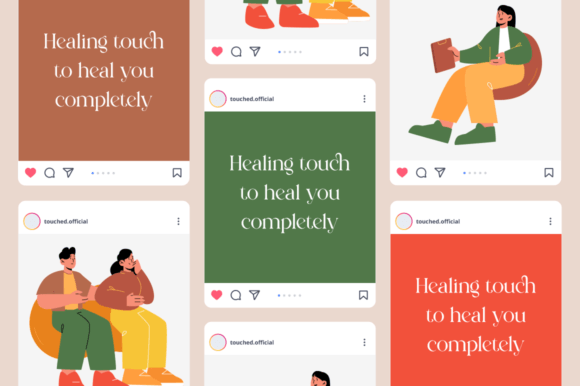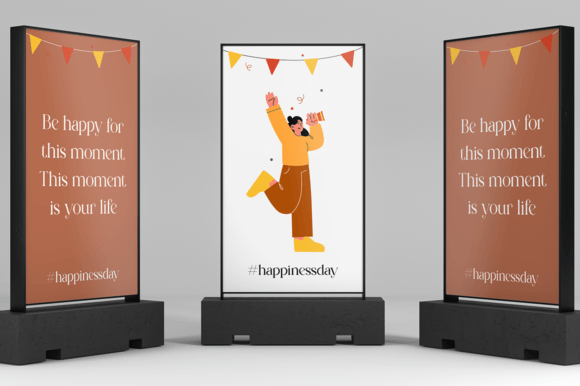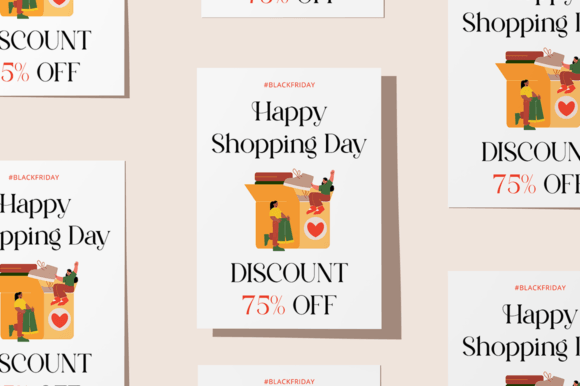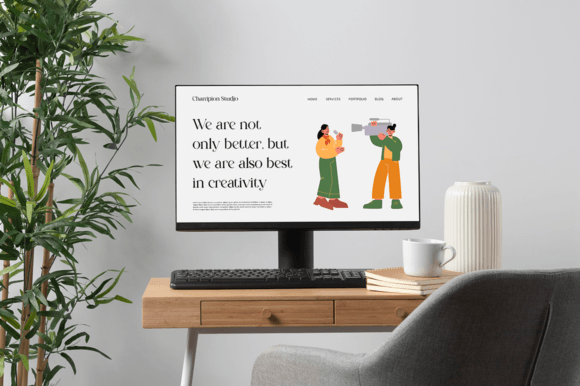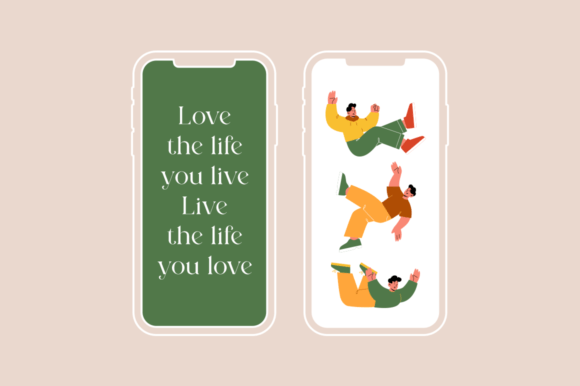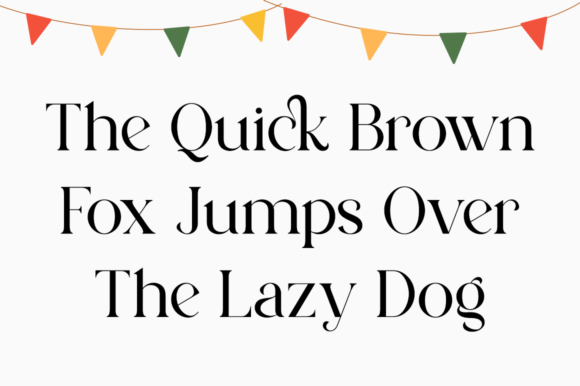
The Elusive Perfect Font: My Love Affair with Hachest
I still remember the frustration of working on a design project, hours spent scrolling through font libraries, and yet, none seemed quite right. The client wanted elegant, the design needed clean lines, and I was on the verge of a creative block. That’s when I stumbled upon Hachest, an elegant, thin-lettered, and distinct serif font that has since become my go-to for a wide variety of designs.
An Honest Review of Hachest
What I Love About Hachest ✨
- ✅ Elegant and refined appearance suitable for luxury brands, editorial designs, and high-end products.
- ✅ Thin letters provide a clean and minimalist aesthetic, perfect for designs requiring subtlety.
- ✅ Distinct serifs add character without being overpowering, making it versatile for various design applications.
- ✅ Highly legible, even at smaller sizes, which is a must for body text and detailed projects.
- ⚠️ Limited availability of condensed or extended versions, which might limit its use in certain layouts.
- ⚠️ Some users might find the font too delicate for very bold or attention-grabbing designs.
The Story Behind Hachest
The creation of Hachest was inspired by a desire to merge classic elegance with modern minimalism. The designer sought to craft a font that would be both timeless and versatile, capable of elevating any design project. Through meticulous attention to detail, Hachest was born — a font that balances delicacy with character.
Q: Is Hachest suitable for body text?
A: Yes, Hachest is highly legible and can be used for body text, especially in digital formats or printed materials where a clean, elegant look is desired.
Q: Does Hachest support OpenType features?
A: Yes, Hachest supports OpenType features, allowing for advanced typographic styling and glyph access in compatible software.
Q: Is Hachest available in different weights?
A: Hachest primarily comes in its elegant, thin-lettered form. It may not have a wide range of weights, but its versatility and clean design make it suitable for various applications.